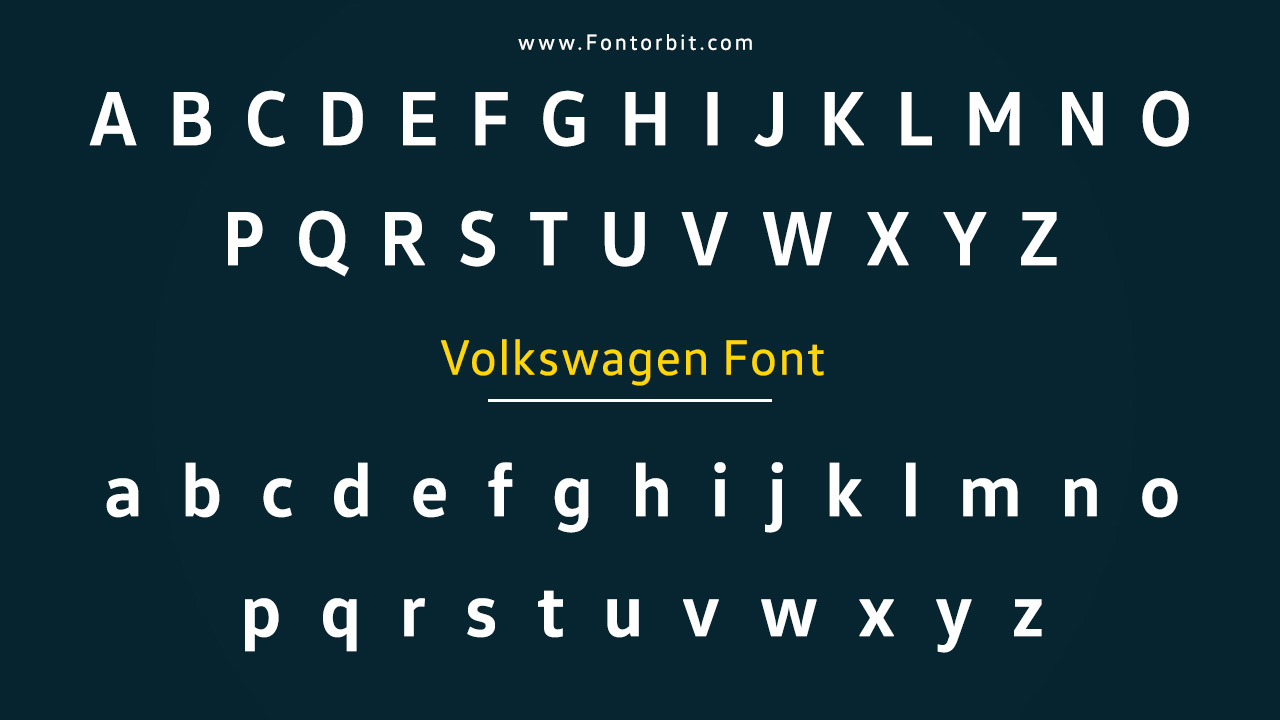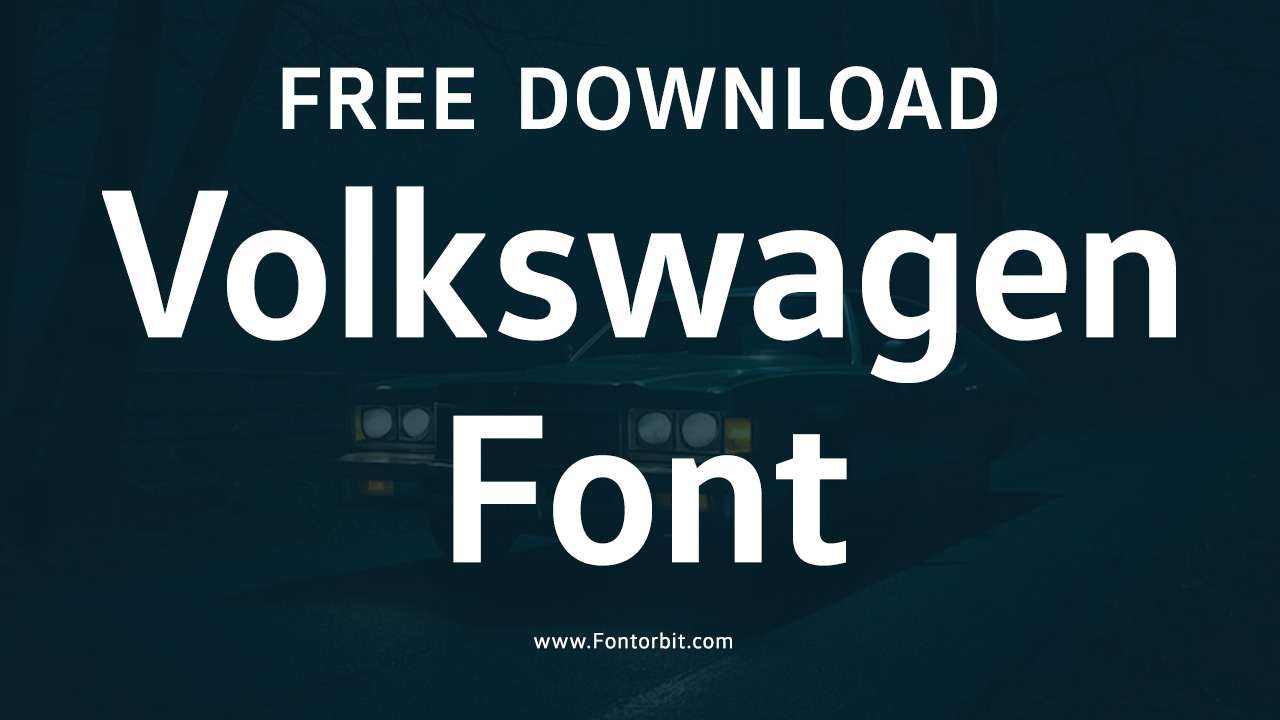
The Volkswagen Font is a distinctive and iconic typeface primarily associated with the Volkswagen automotive brand. The designers aimed to reflect the company’s modern and minimalist aesthetic, featuring clean lines and a timeless appeal. They published this typeface in the early 2000s, belonging to the sans-serif font family.
Volkswagen Font Family Includes
The Volkswagen font family is well-known for its elegant yet bold presence. It is highly versatile, offering a range of styles that cater to various needs in branding, advertising, and digital content. The font family includes the following styles:
- vwtext-regular
- vwtext-bold
- vwhead-regular
- vwhead-bold
Notable Uses Of Volkswagen Font
The Volkswagen font has been widely used in various contexts, most notably in:
- Volkswagen’s official branding and advertising campaigns.
- Promotional materials and digital content for the Volkswagen Group.
- Car brochures, dealership banners, and product manuals.
- Corporate communication for Volkswagen and its subsidiaries.
The Volkswagen font works best for commercial and personal projects, especially when you need a modern, professional, and clean appearance. It is perfect for use in:
- Automotive Branding
- Corporate identities
- Advertisements and product catalogs
- Web and app design
- Social media graphics
If you’re looking for free alternatives to the Volkswagen font, here are some great options:
- Futura
- Roboto
- Open Sans
- Helvetica Neue
These fonts feature similar clean, geometric structures, making them suitable for projects that require Volkswagen’s signature style when the original font is unavailable.
The Volkswagen font is an essential asset for anyone involved in automotive design or corporate branding. Its sleek, modern style is versatile enough for various applications, from print to digital. Whether you are designing for commercial purposes or personal projects, the Volkswagen font offers a professional, refined look that is hard to beat.
1.What Type Of Font Is The Volkswagen Font?
It is a sans-serif font.
3.What Is A Good Alternative To The Volkswagen Font?
Futura or Montserrat are excellent free alternatives.
5.Is The Volkswagen Font Good For Web Design?
Yes, it is perfect for web and digital designs.
6.What Is The Closest Google Font To Volkswagen?
Montserrat and Roboto are close Google Font alternatives.
7.Is The Volkswagen Font Suitable For Logos?
Yes, its clean lines make it ideal for logo designs.
8.Where Is The Volkswagen Font Most Commonly Used?
It is widely used in automotive branding and corporate communications.